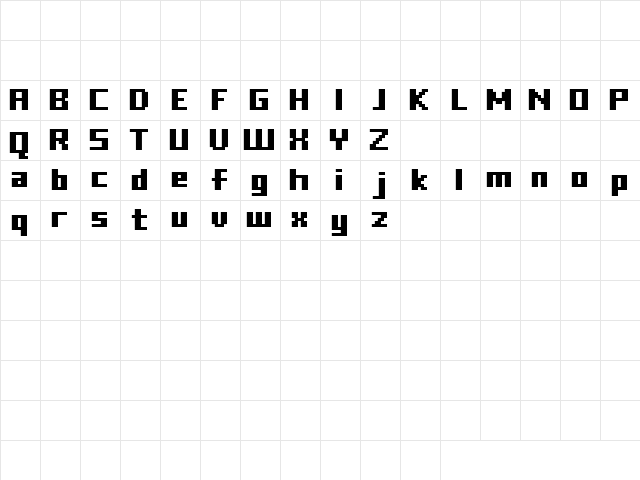
FFF Freedom Regular
Design Context for FFF Freedom Typeface
FFF Freedom is a composed and adaptable typeface that performs quietly and consistently across a wide range of design contexts.
Pro Tip: Use FFF Freedom in both headline and body roles to test its range before committing to a single application.